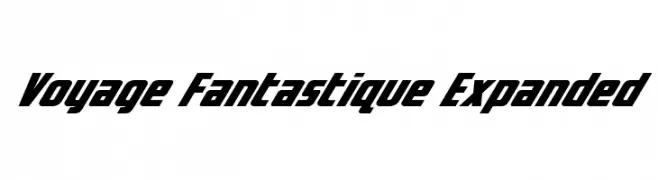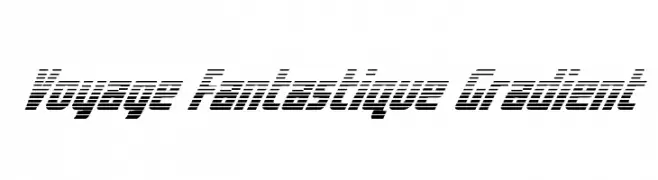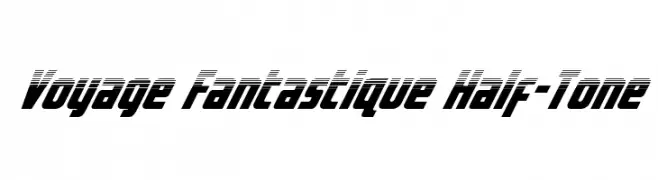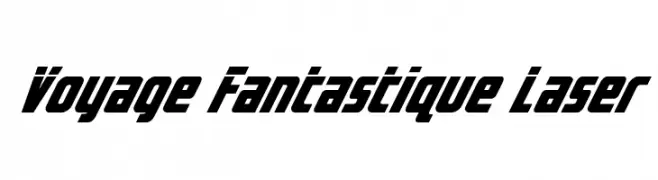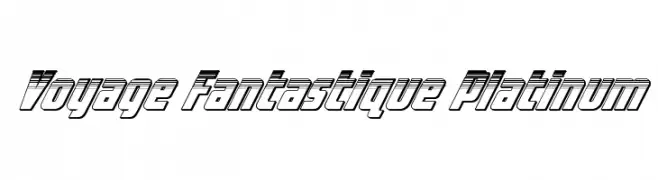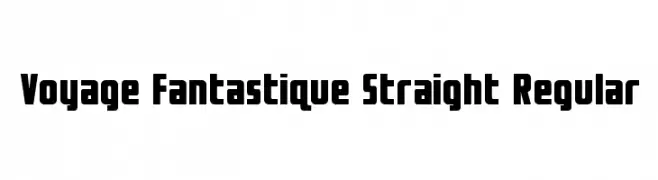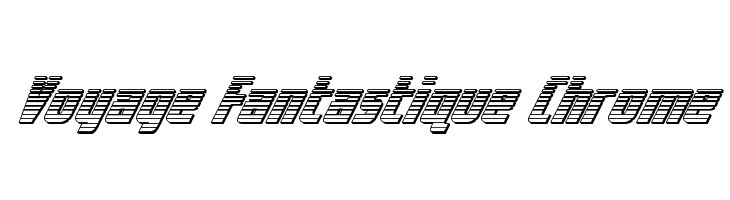
A bold, futuristic font with a chrome-like, three-dimensional appearance.
A bold, condensed, and slanted font with a dynamic and energetic style.
A bold, slanted font with a dynamic and modern style.
A futuristic, gradient-style font with dynamic horizontal lines.
A bold, dynamic font with a futuristic, half-tone style.
A bold, futuristic font with sharp angles and dynamic slant.
A bold, slanted font with a dynamic and modern style.
A bold, three-dimensional font with a futuristic and dynamic style.
A bold, geometric font with a modern and assertive style.